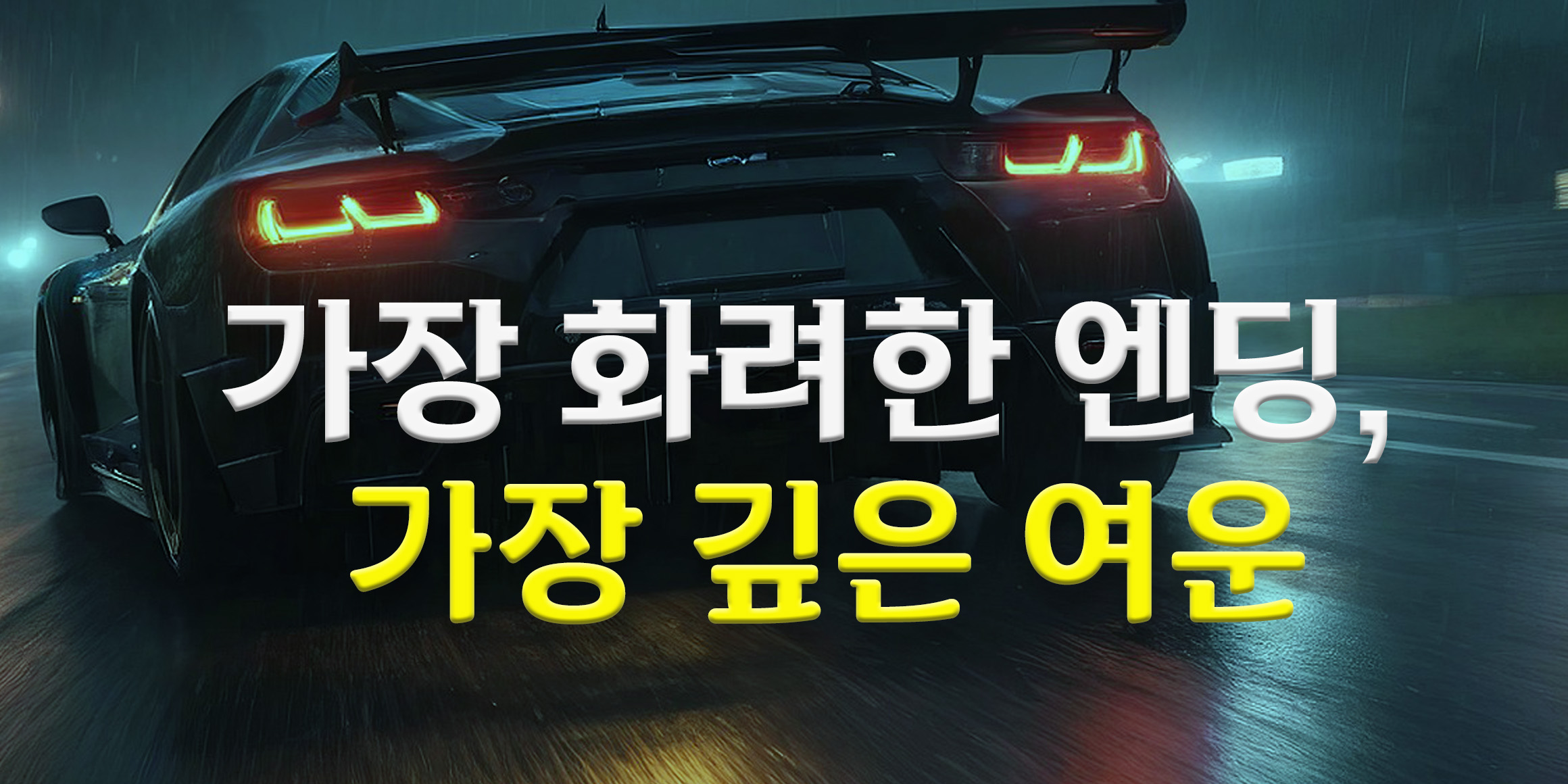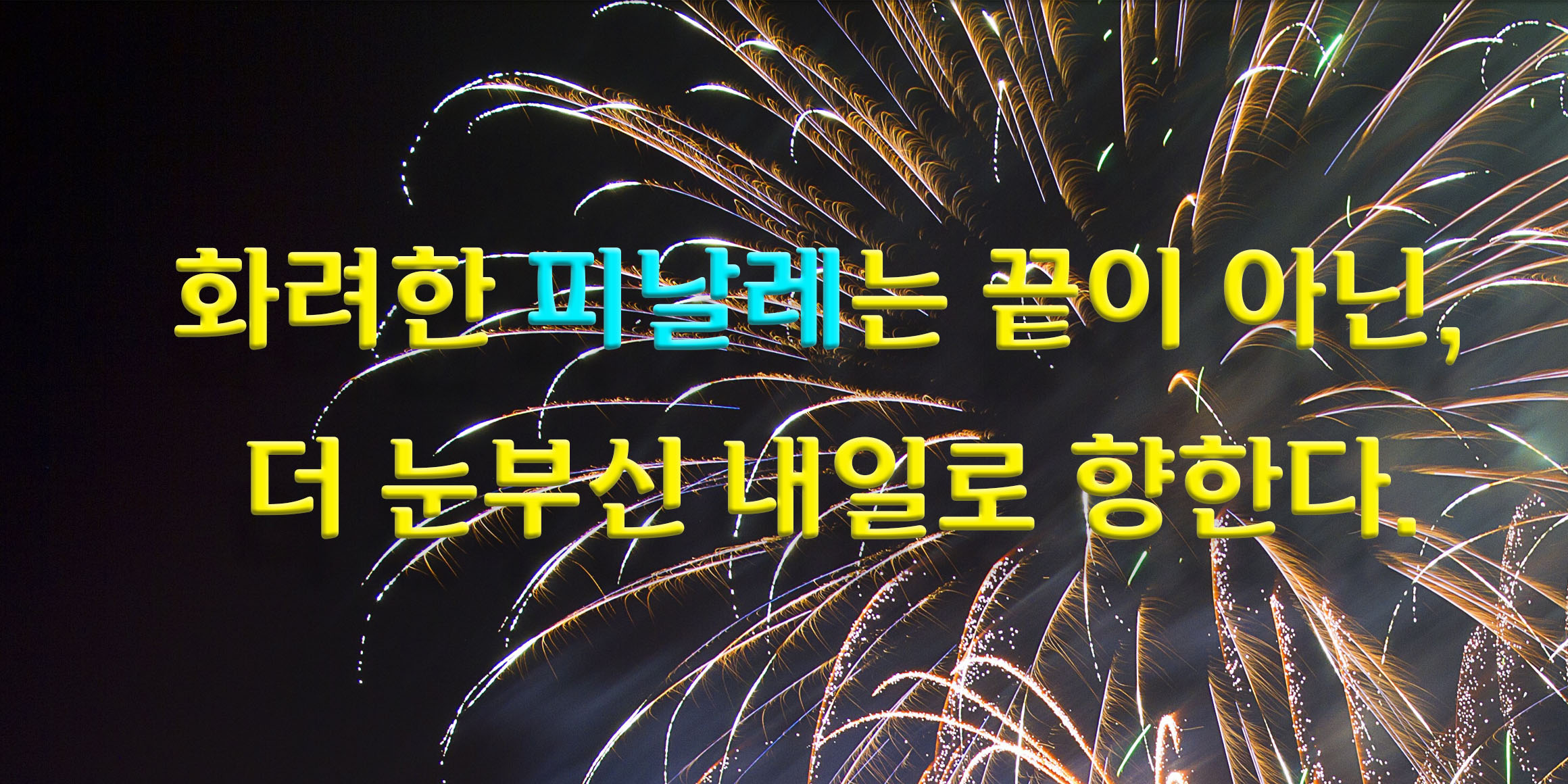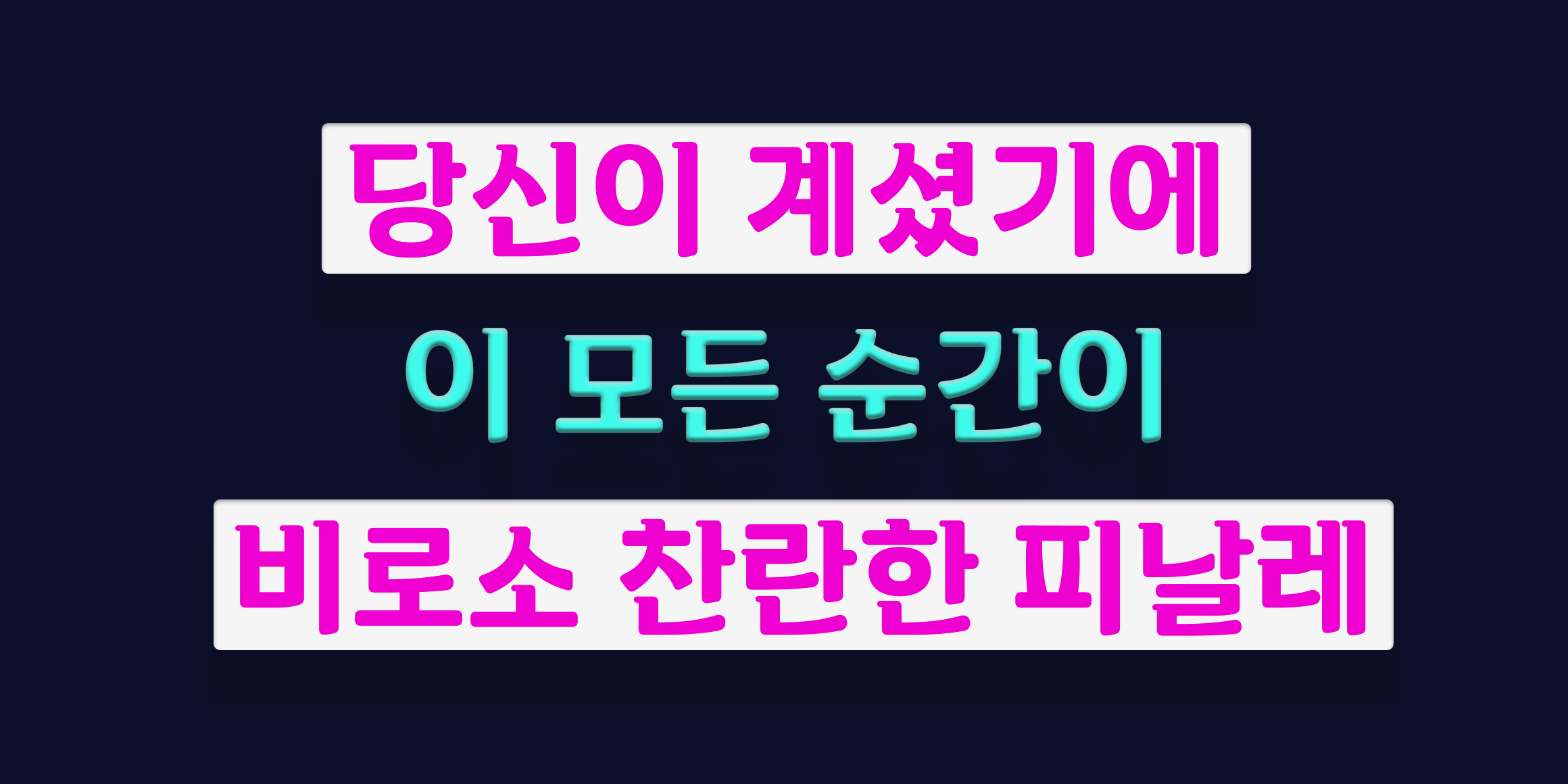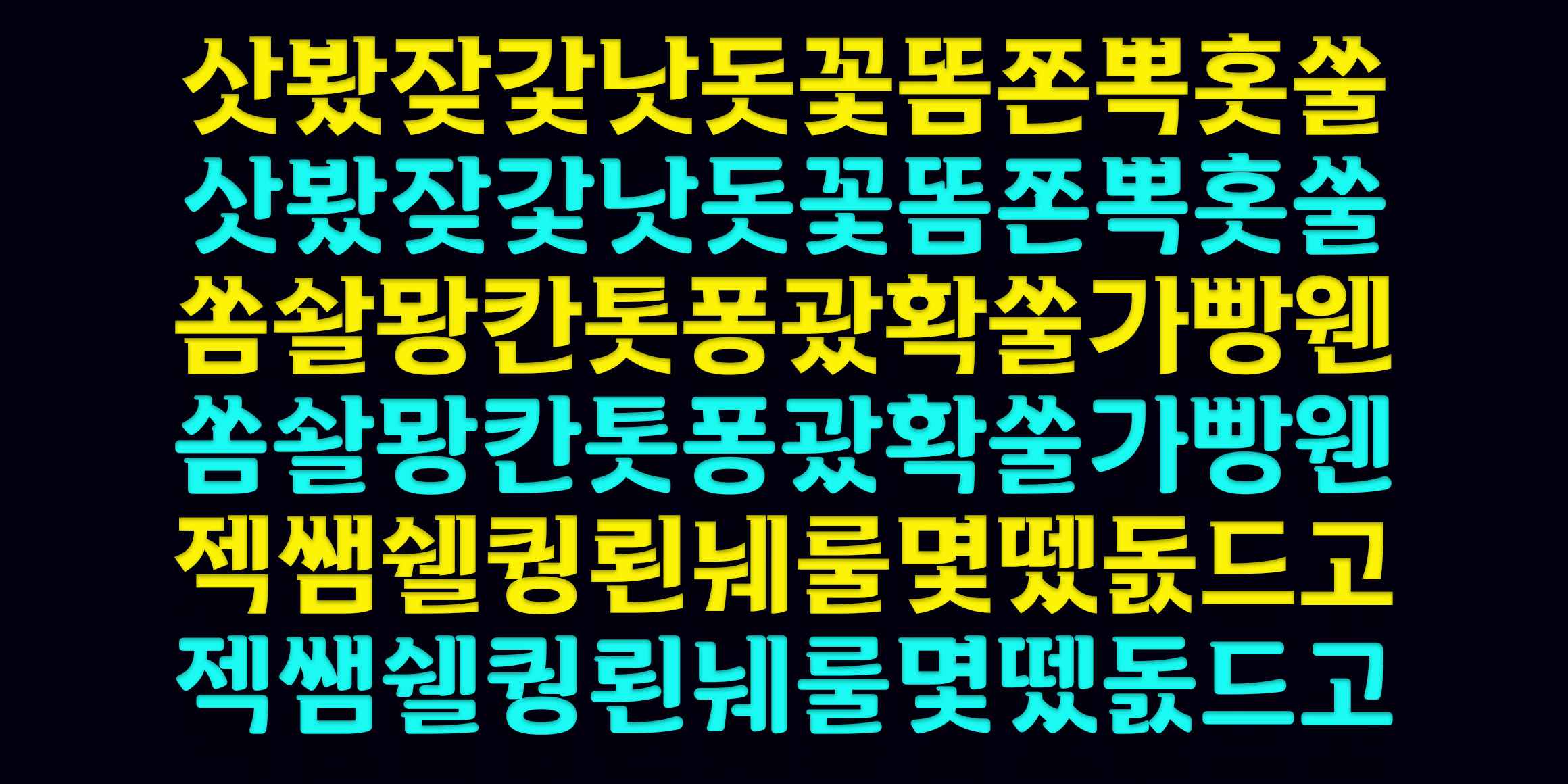
1. Finale Basic
The Structure of the Stage, Solidity, and Restrained Elegance
Like a sturdy stage setup that supports a flawless final performance, the skeletal structure of each letterform stands straight and upright. Its stable width and consistent stroke thickness deliver a sense of visual trust. The overall neat module, subtle rhythm, and full-bodied structure evoke a powerful impression of grandeur and clarity.
2. Finale Round
The Moment of Blooming, Fluid Curves, and Warm Resonance
Finale Round captures the exact moment when a flower bud softly bursts into full bloom during the absolute highlight of a story or performance. By adding round, fluid curves to a solid structural backbone, it decorates the final closure of a sentence with utmost warmth and beauty.
While the layout remains neat and orderly—much like a compelling narrative holding the center of a stage—the gently rounded terminals retain a touch of human warmth and friendliness even within cold digital environments. The geometric and uniform stroke thickness ensures high legibility, while the aesthetics of the rounded finish offer an approachable and comforting impression.
- DX피날레 / DXFinale